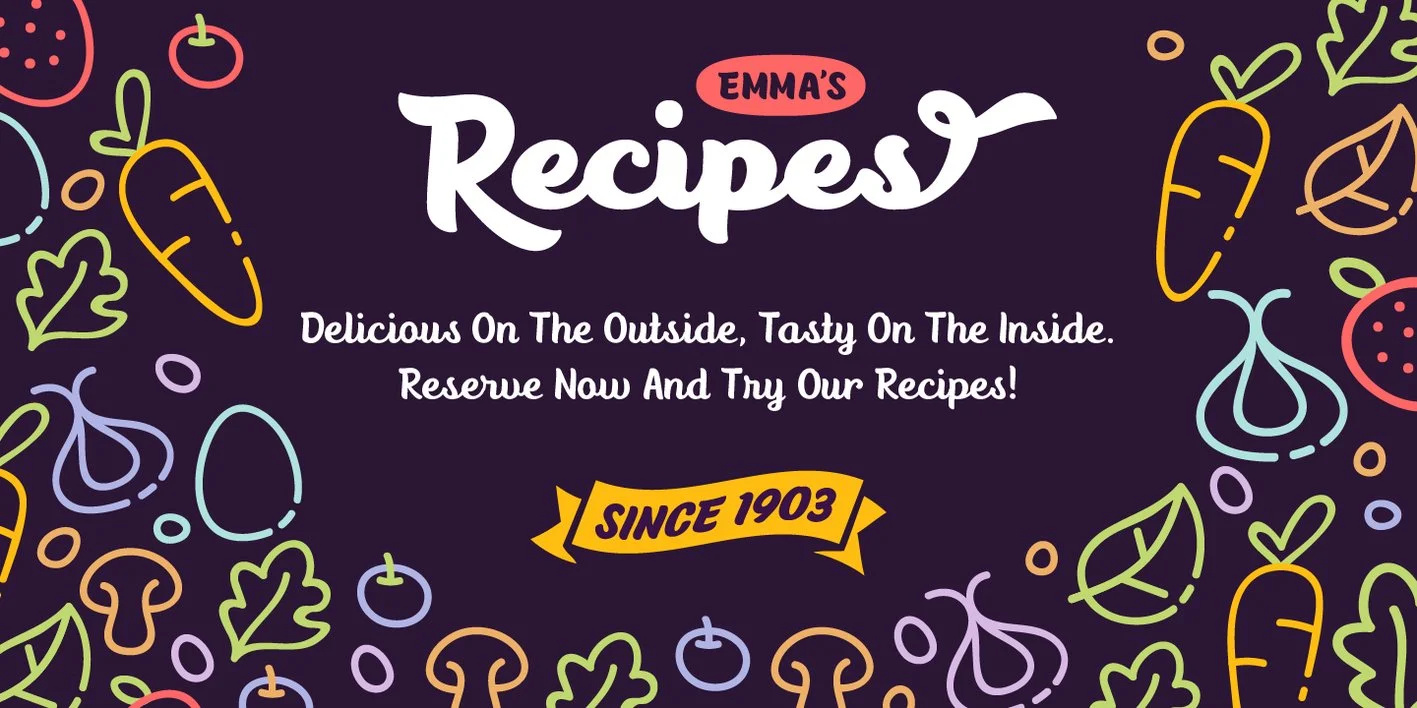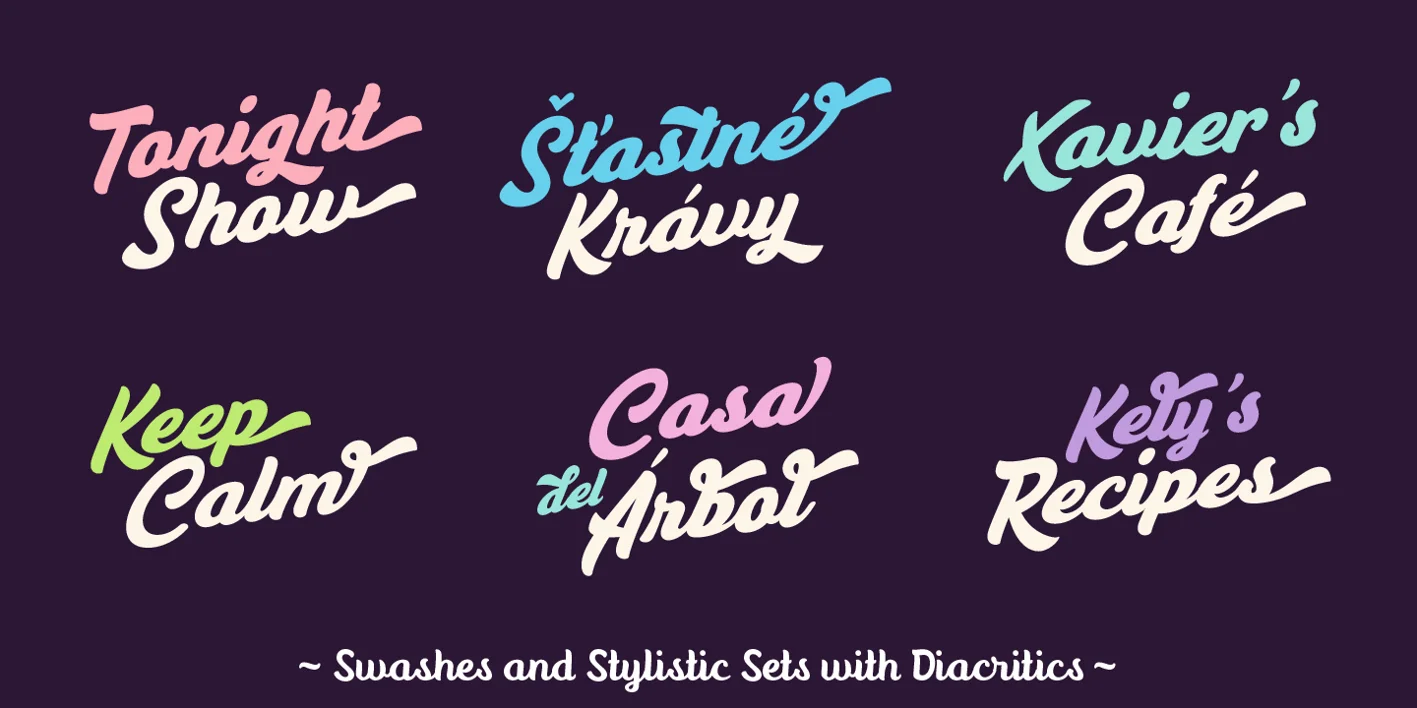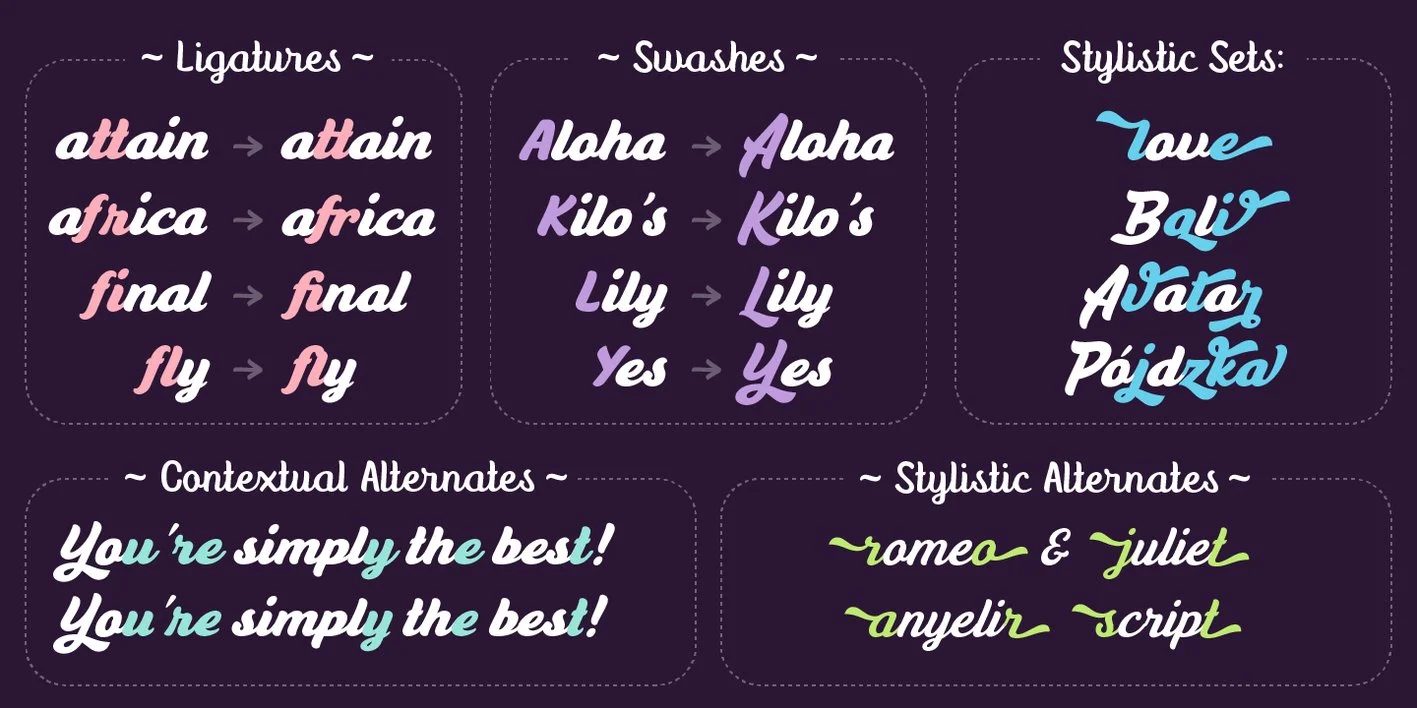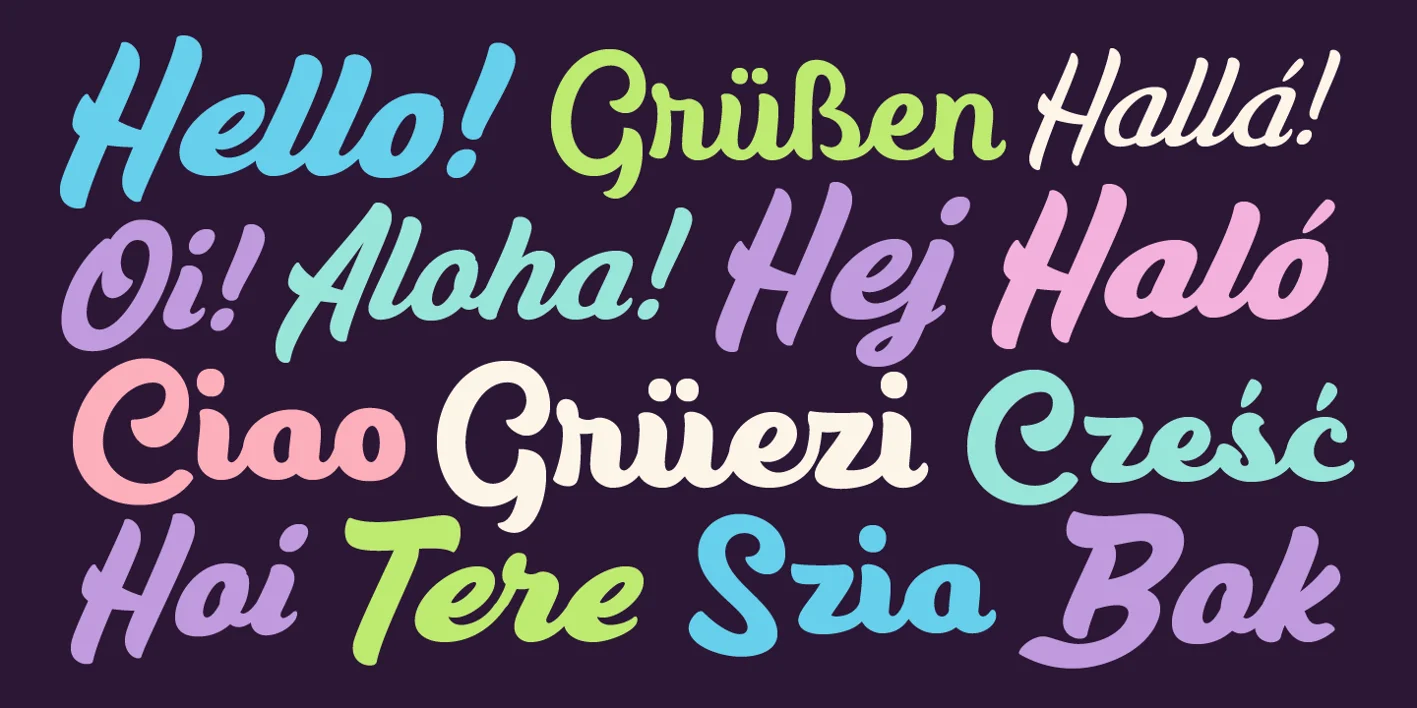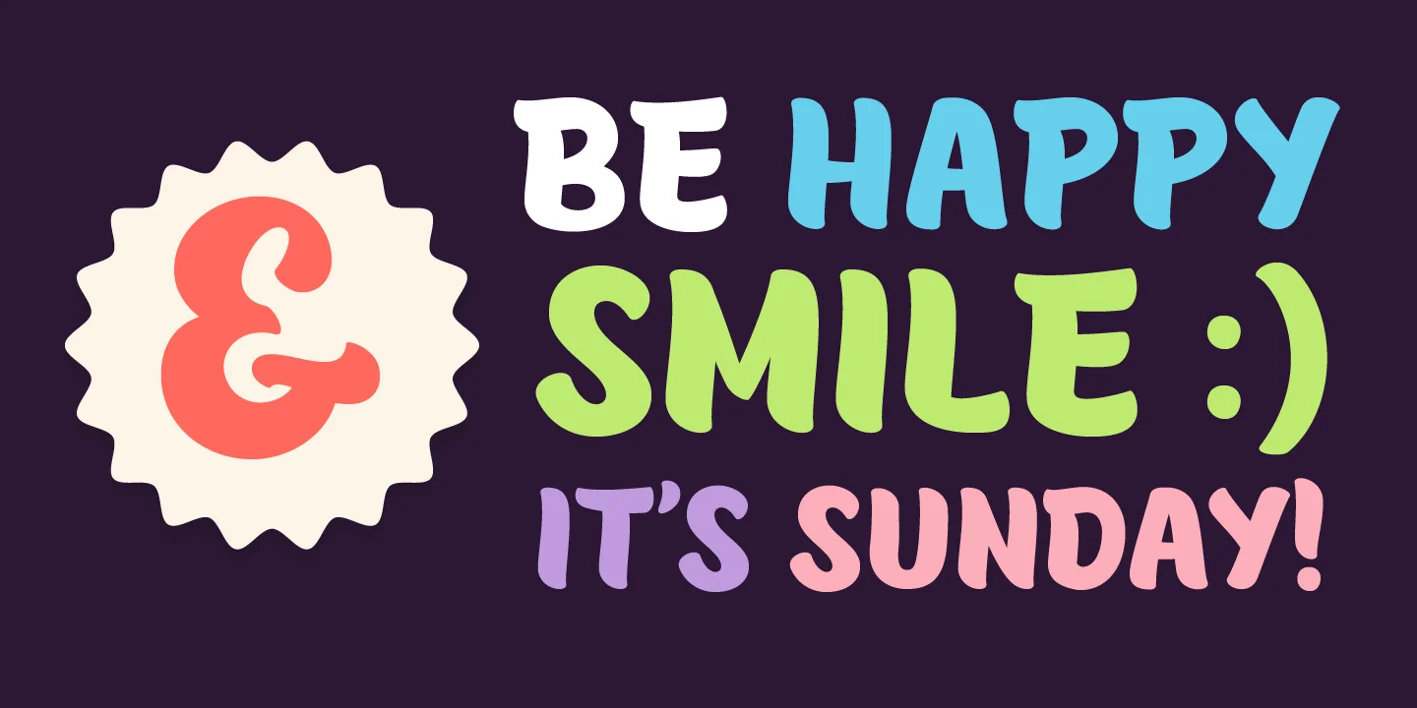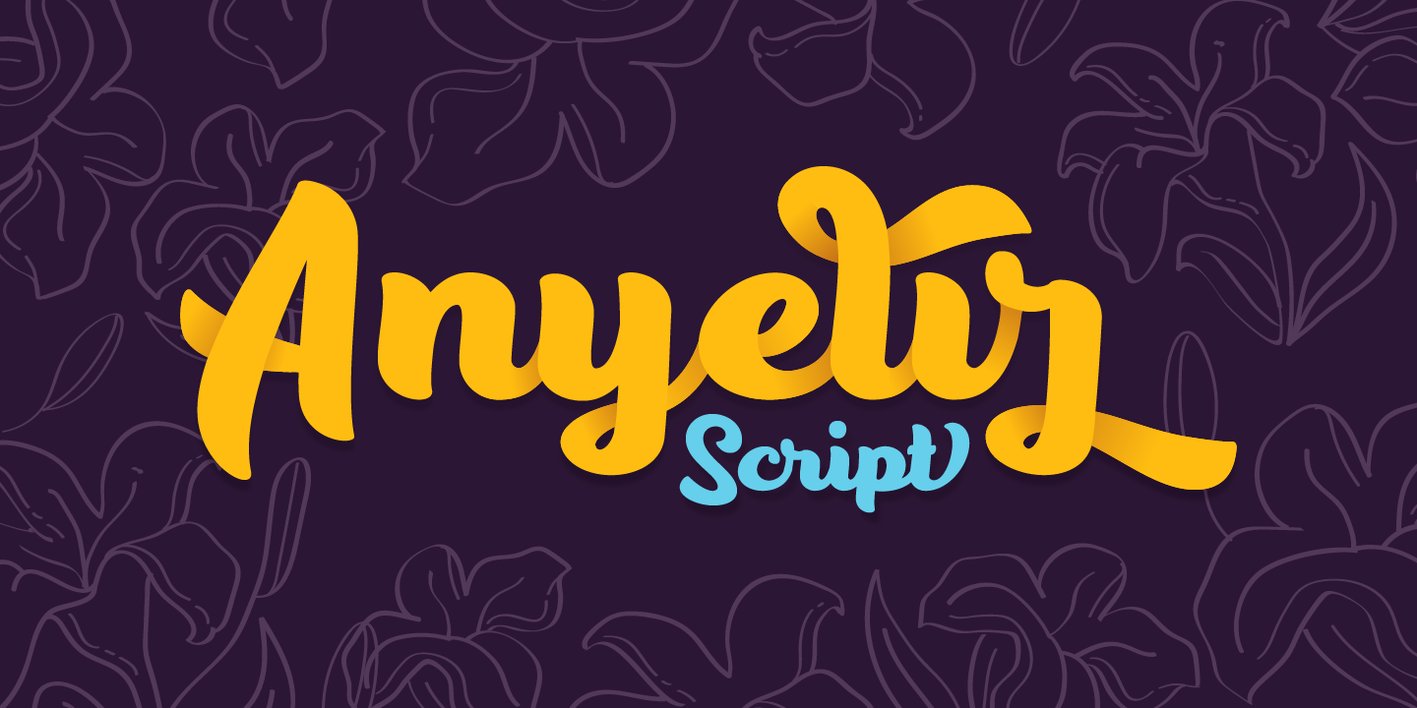
Anyelir Script
A good typeface communicates tone before a single word is read. Anyelir Script achieves this through controlled contrast that rewards close inspection. The typeface brings an elegant, calligraphic sensibility to a broad range of creative disciplines, with strong typographic hierarchy support that holds up whether the work is print-first or screen-first.
In practice, Anyelir Script proves particularly effective for packaging design, bridal materials, beauty packaging, brand identity systems, perfume labels. Designers reaching for it find that the type decisions feel resolved rather than laboured — a useful quality when client timelines are tight.
The range of applications extends to environmental graphics, advertising campaigns, fashion editorials, editorial layouts. That breadth is deliberate: the proportions and spacing were stress-tested across a wide range of mock briefs before the typeface was finalised.
Independent studios handling packaging and editorial work find Anyelir Script a reliable choice for projects that demand both personality and restraint. The design avoids the self-conscious quirkiness that dates quickly, settling instead for considered distinctiveness that holds up over time.